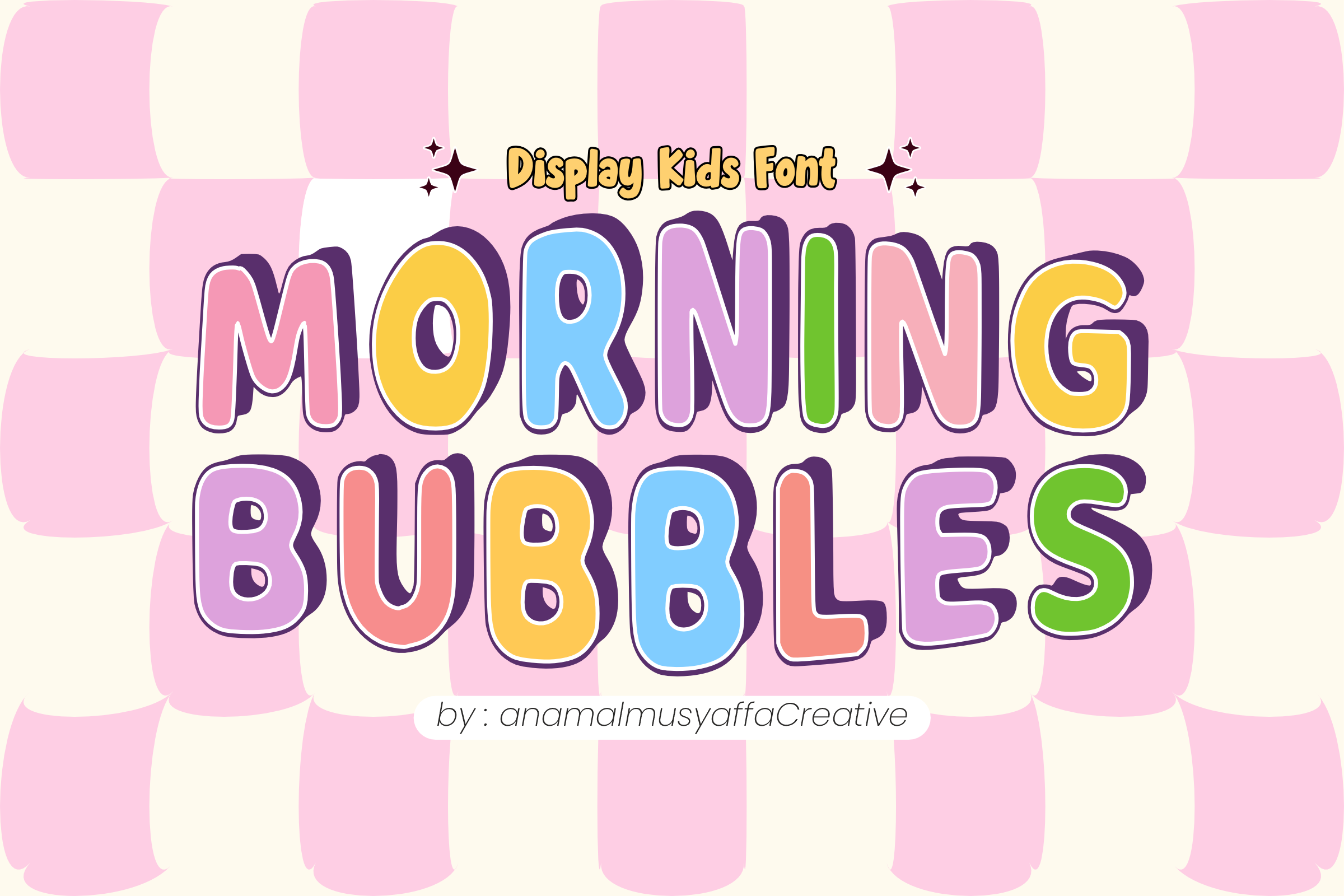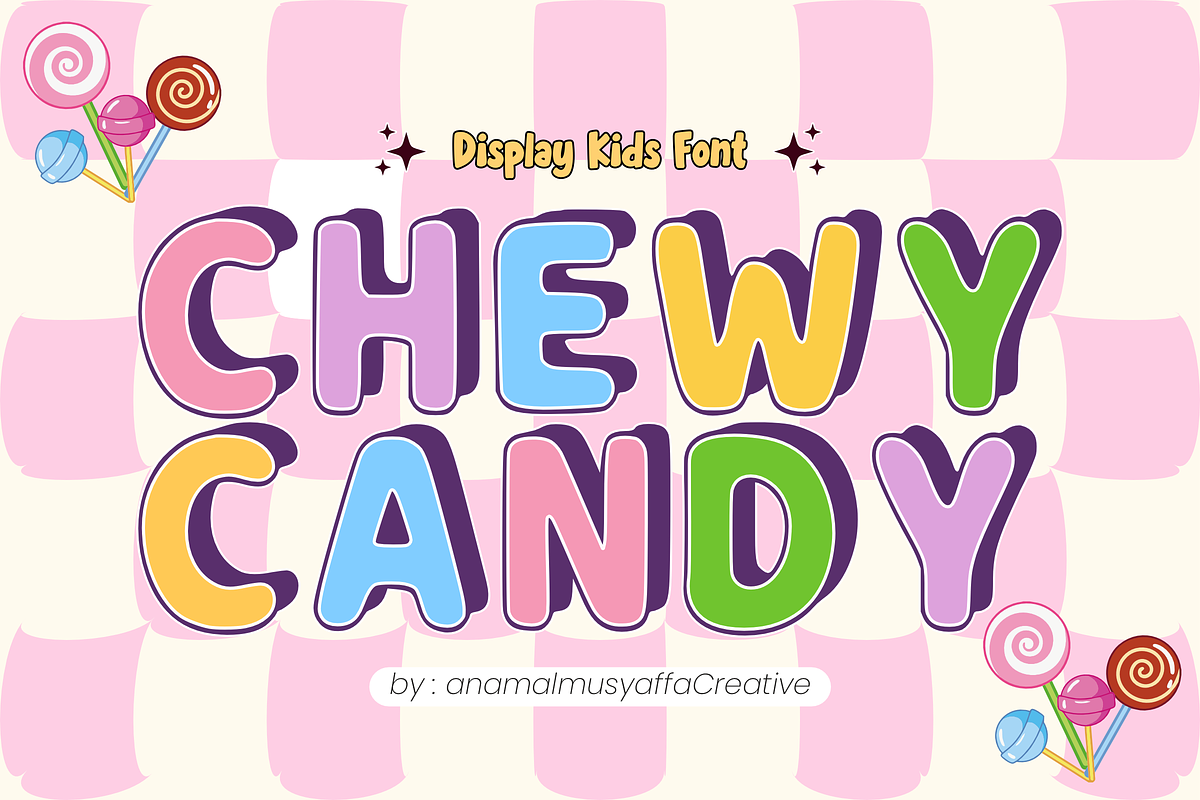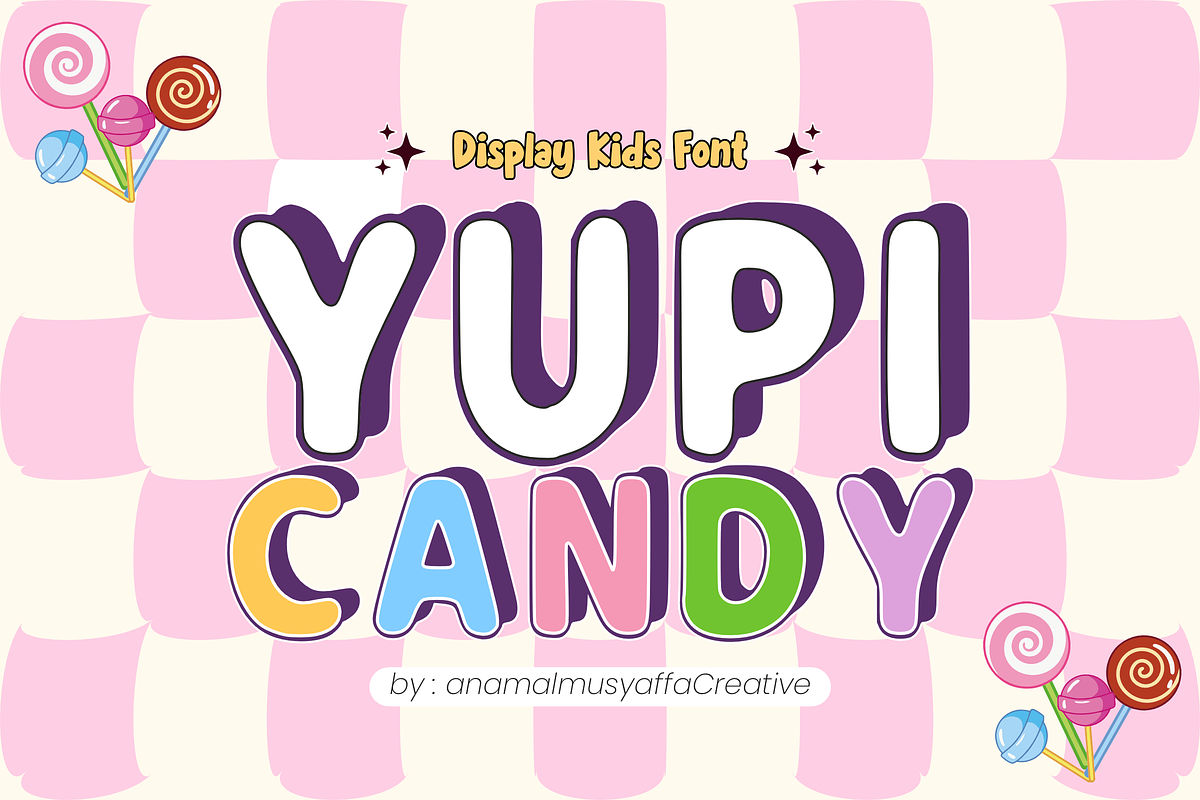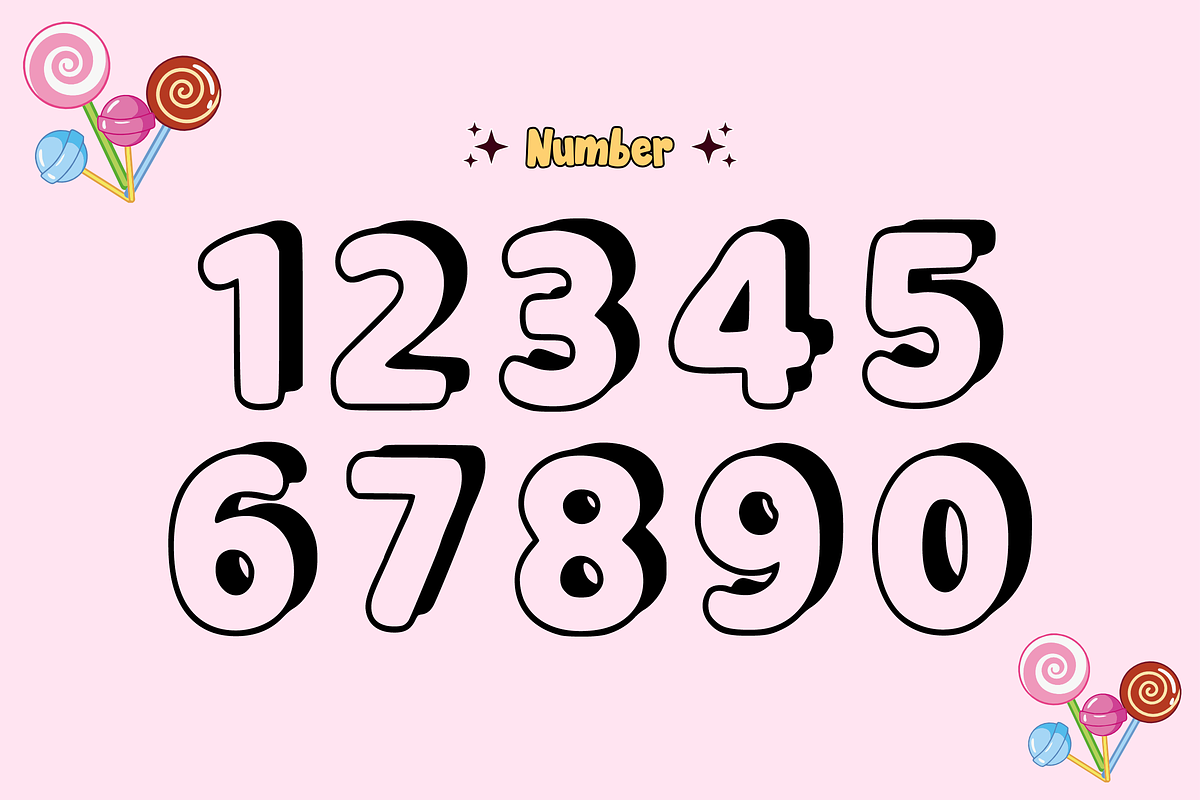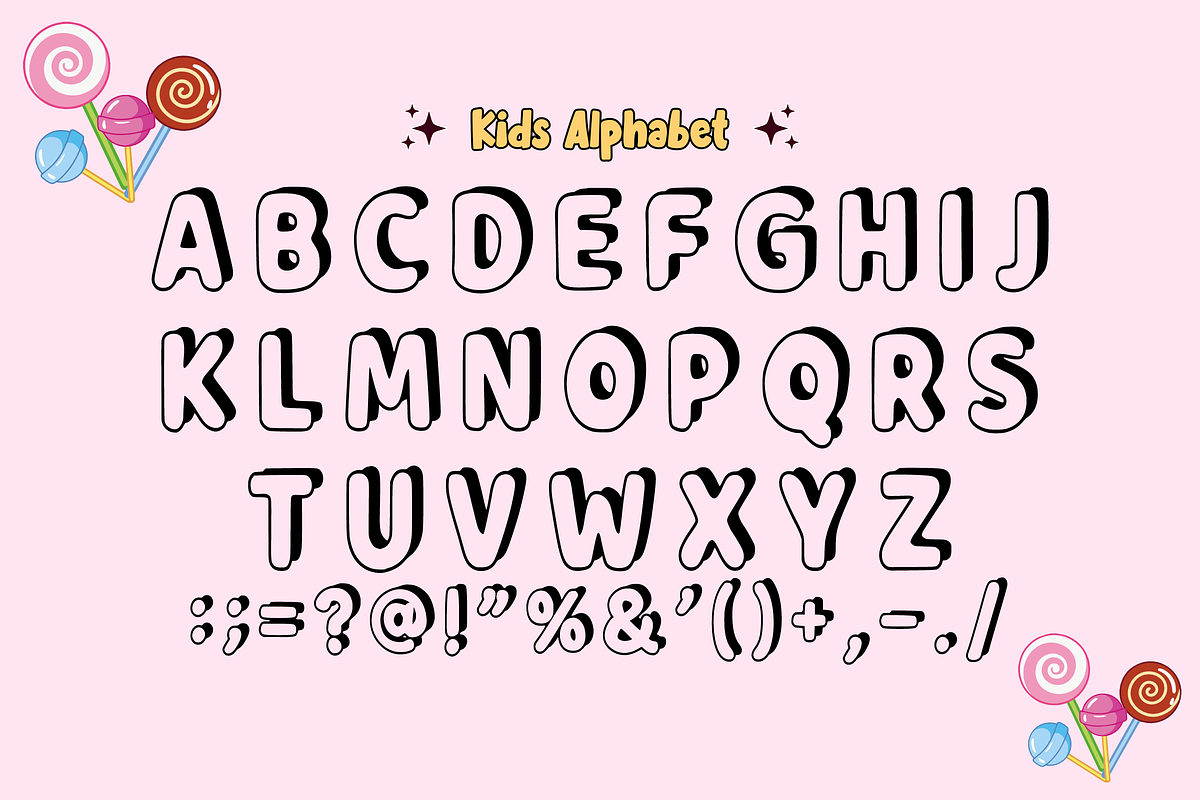
Morning Bubbles - Display Font
🫧 Morning Bubbles - Playful & Bubbly Display Font Start your creative day with a burst of joy! Morning Bubbles is a cheerful, puffy display font designed to bring a smile to any project. With its soft rounded edges and bold "bubble" personality, this font perfectly captures the energetic and whimsical vibe of childhood wonders.
Whether you're creating a bright brand identity or fun social media content, Morning Bubbles adds that essential "pop" of fun with its unique 3D-shadow effect and friendly letterforms. It’s thick, it’s bouncy, and it’s ready to play!
✨ What’s Inside: Uppercase Alphabet (Bold & Punchy) 🔠
Numbers & Essential Symbols 🔢
Playful 3D Shadow Aesthetic 🎈
Clean & Legible Shapes (Perfect for headlines!) 👁️
Bring your designs to life with the most bubbly font in town! Morning Bubbles is here to make your text look delicious and fun.